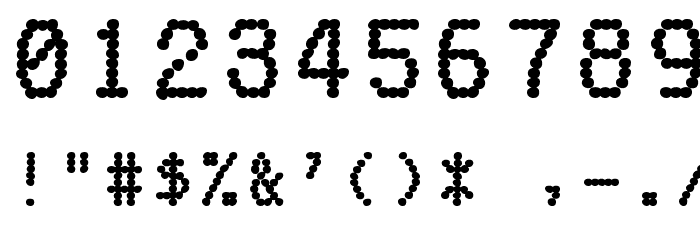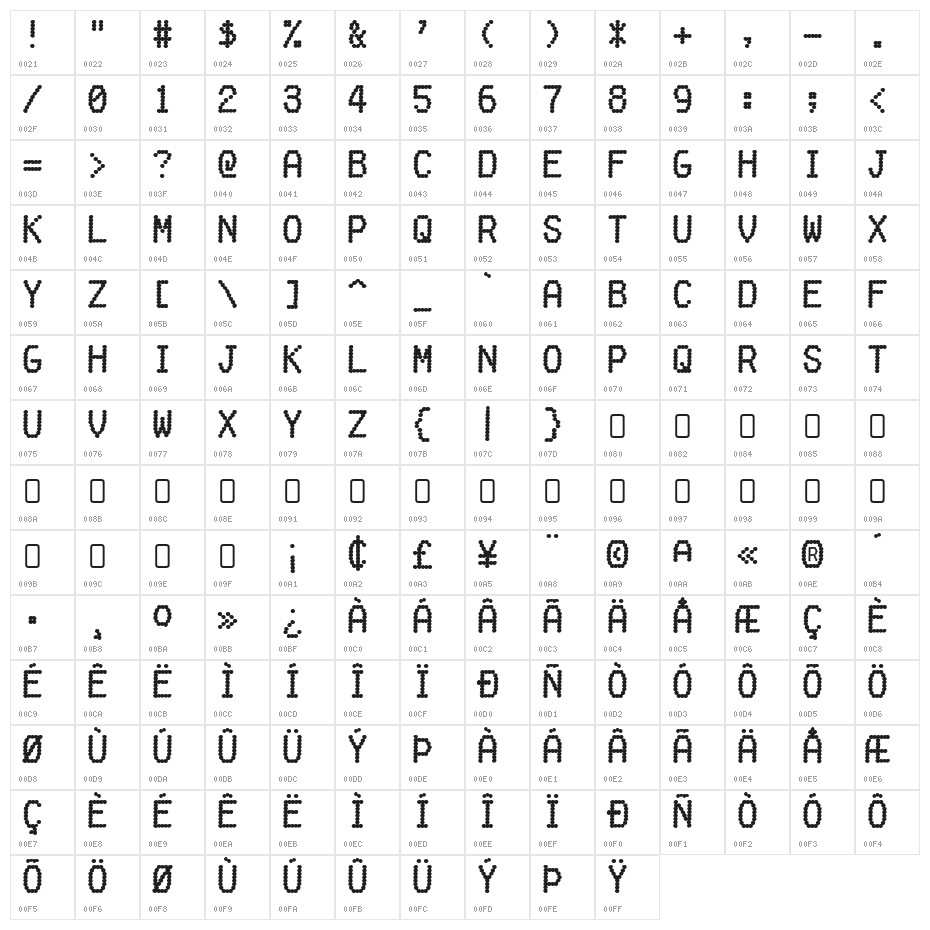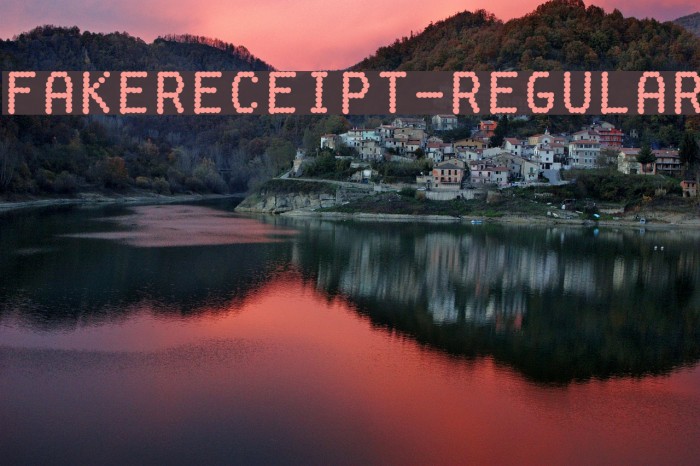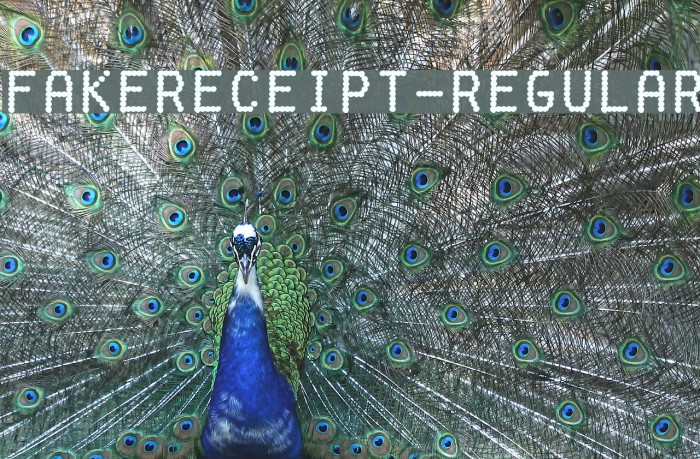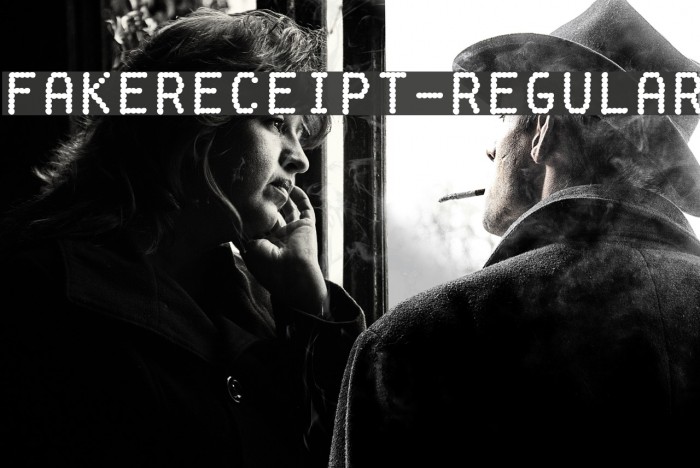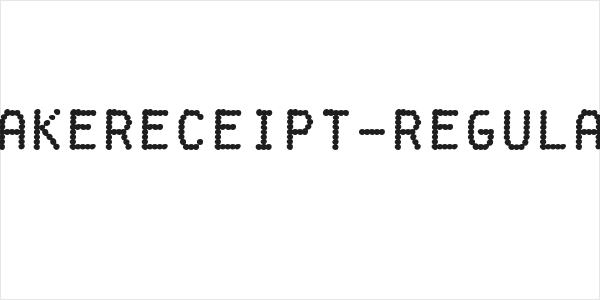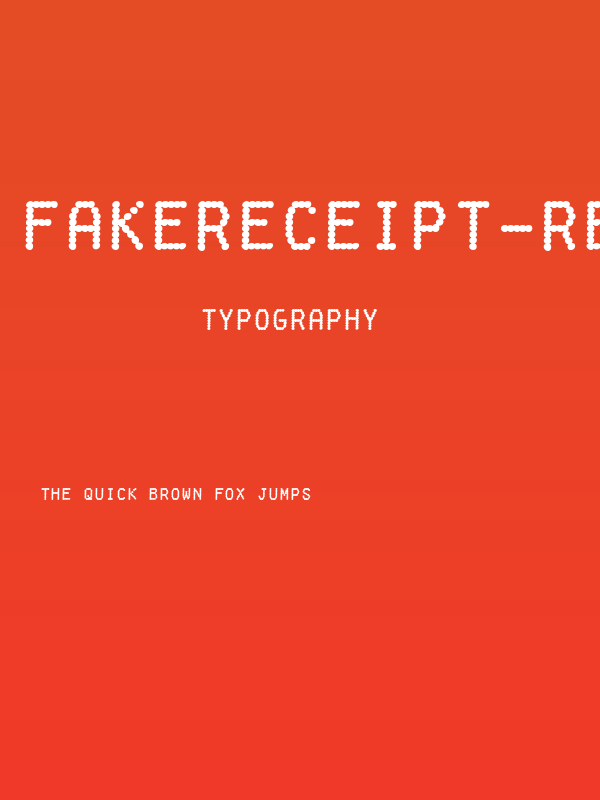
FakeReceipt-Regular Font
FakeReceipt-Regular Description
This font features a unique dot-matrix style, reminiscent of old receipt printers or digital displays. Each character is composed of a grid of dots, giving it a retro, pixelated appearance. The uniformity of the dots creates a consistent texture across all characters, while the spacing between the dots ensures legibility. The uppercase and lowercase letters maintain a similar height, contributing to a monospaced feel. Numbers and special characters follow the same design, making the font cohesive and versatile. Its distinct style makes it ideal for projects that require a vintage or digital aesthetic.
| Use Case | Headlines, Logos, Digital displays |
| Proposed Projects | Ideal for retro-themed designs, digital displays, vintage posters, and tech-related branding. |